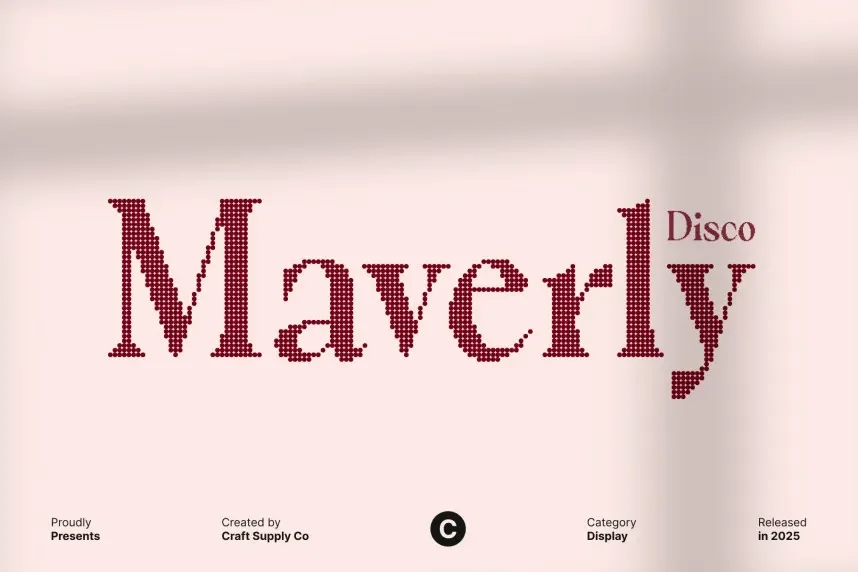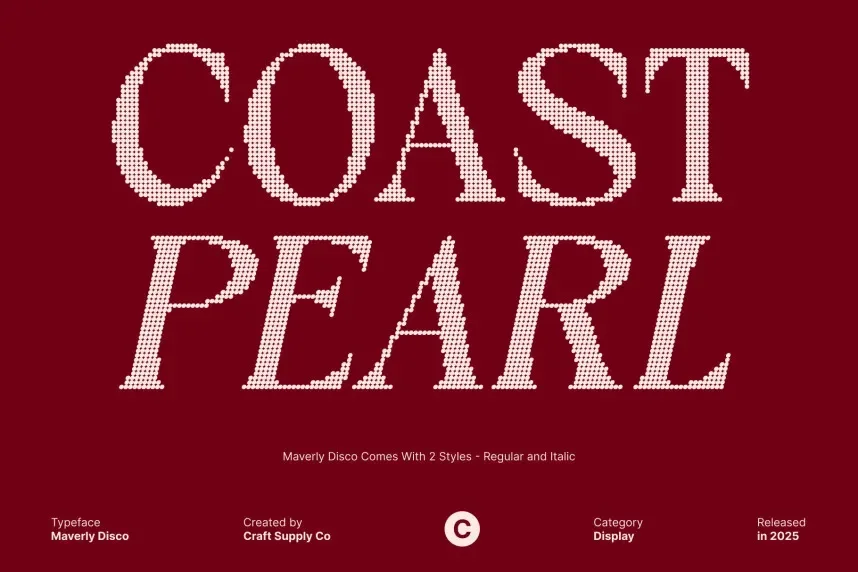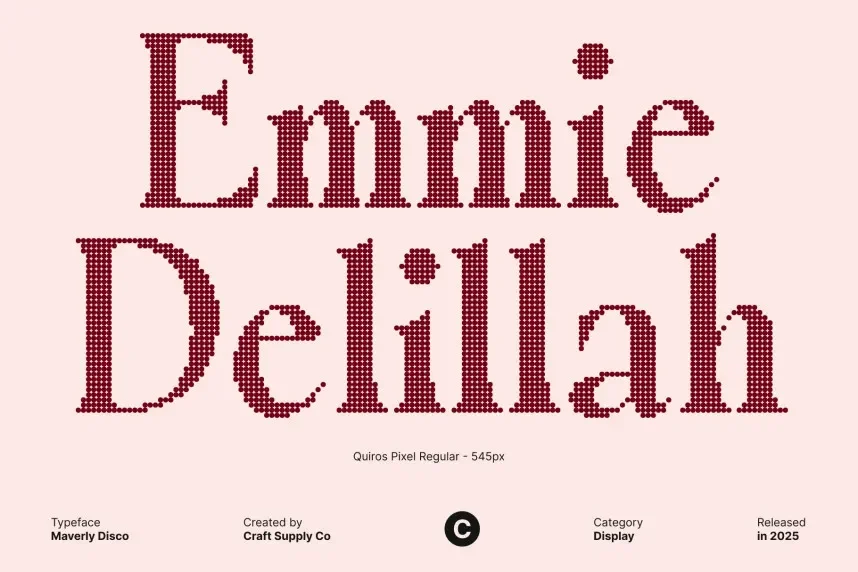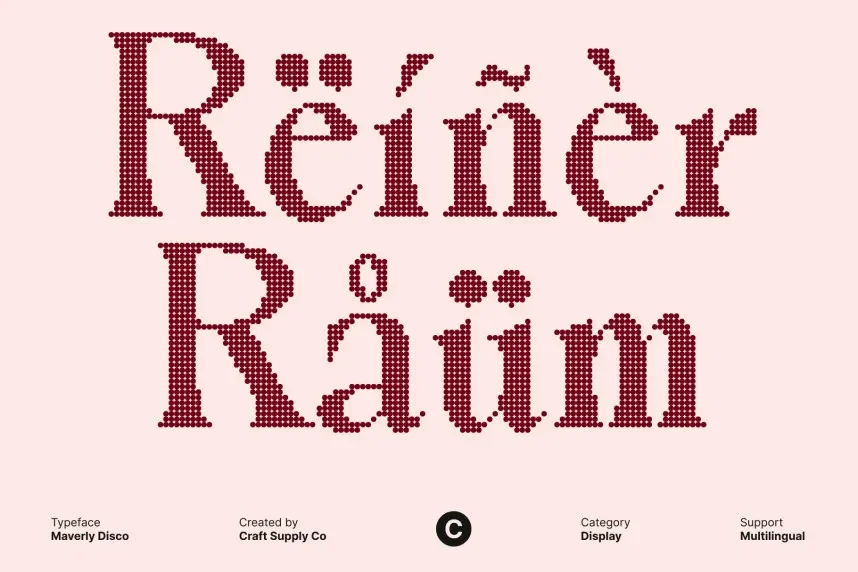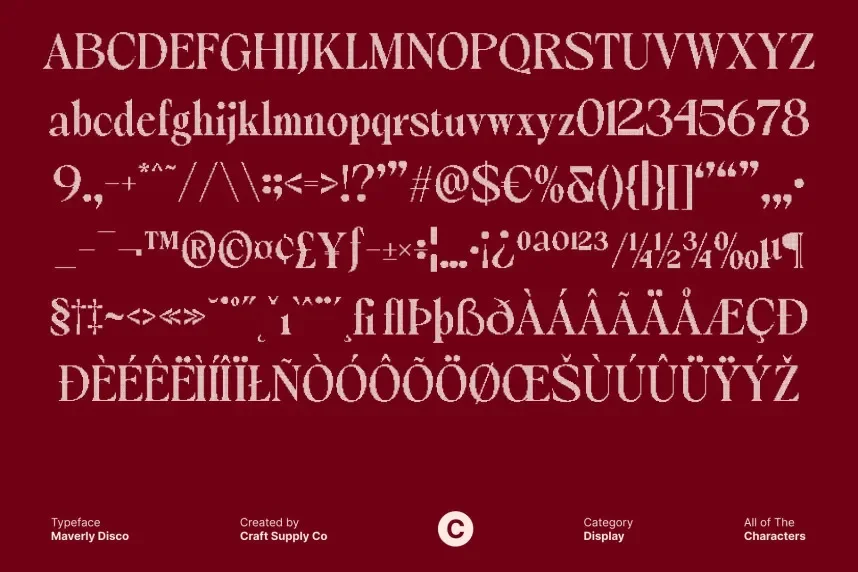
Maverly Disco Font is a stylish, bold typeface with rounded edges and an upbeat, retro aesthetic. It’s ideal for projects that need to stand out, such as event promotions, branding, and social media graphics.